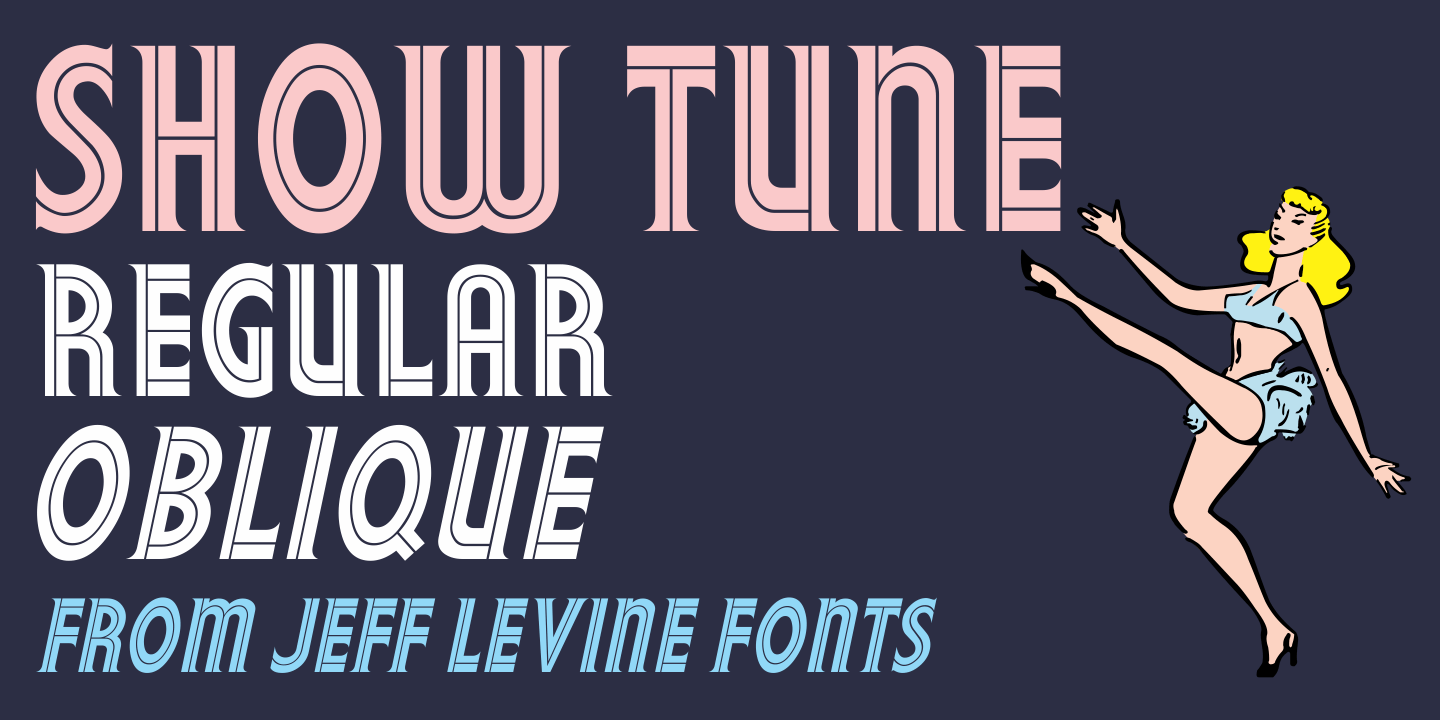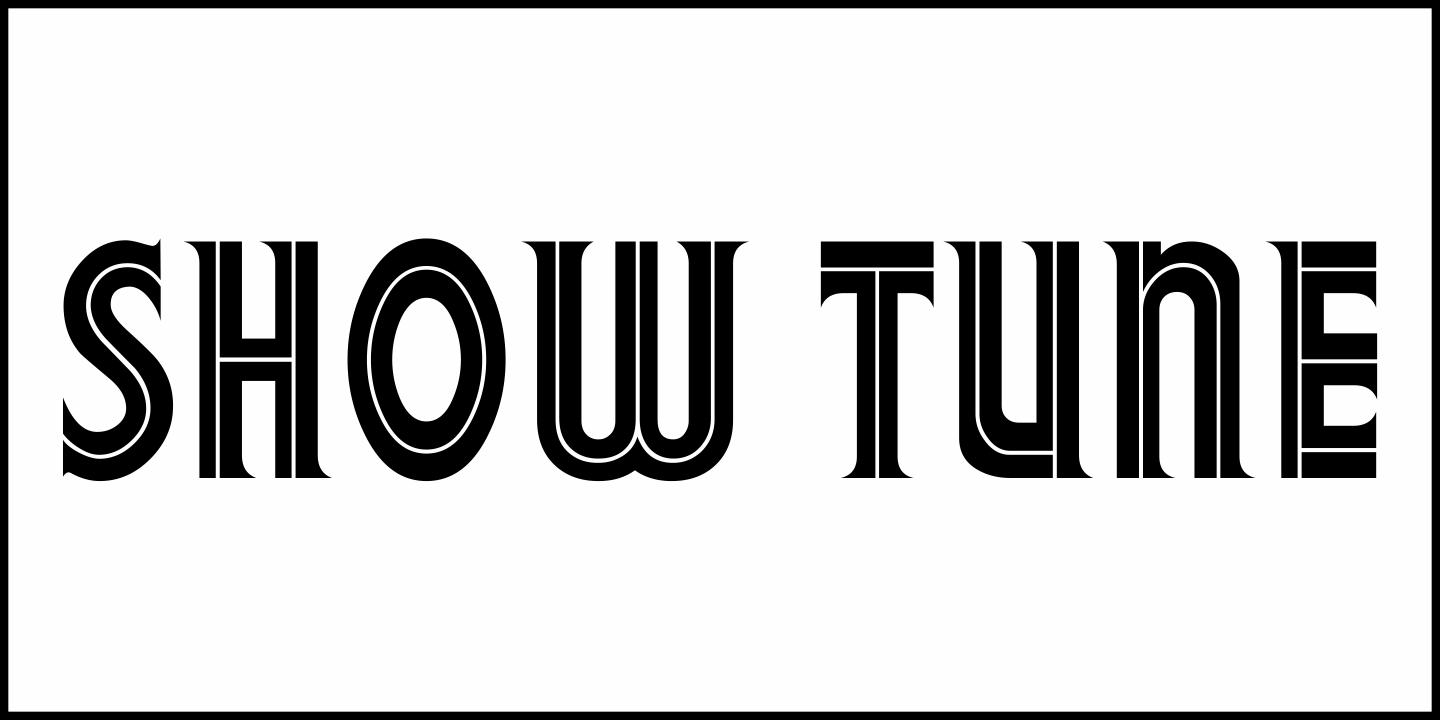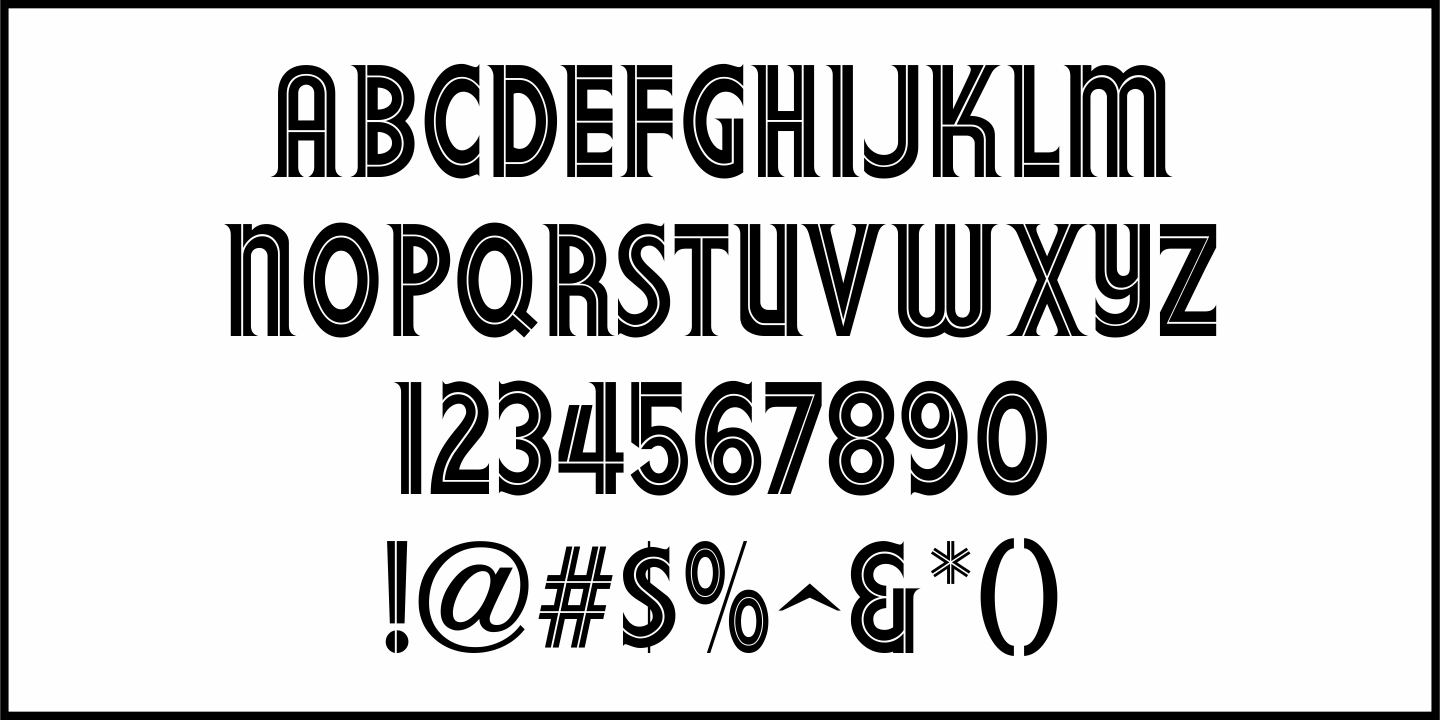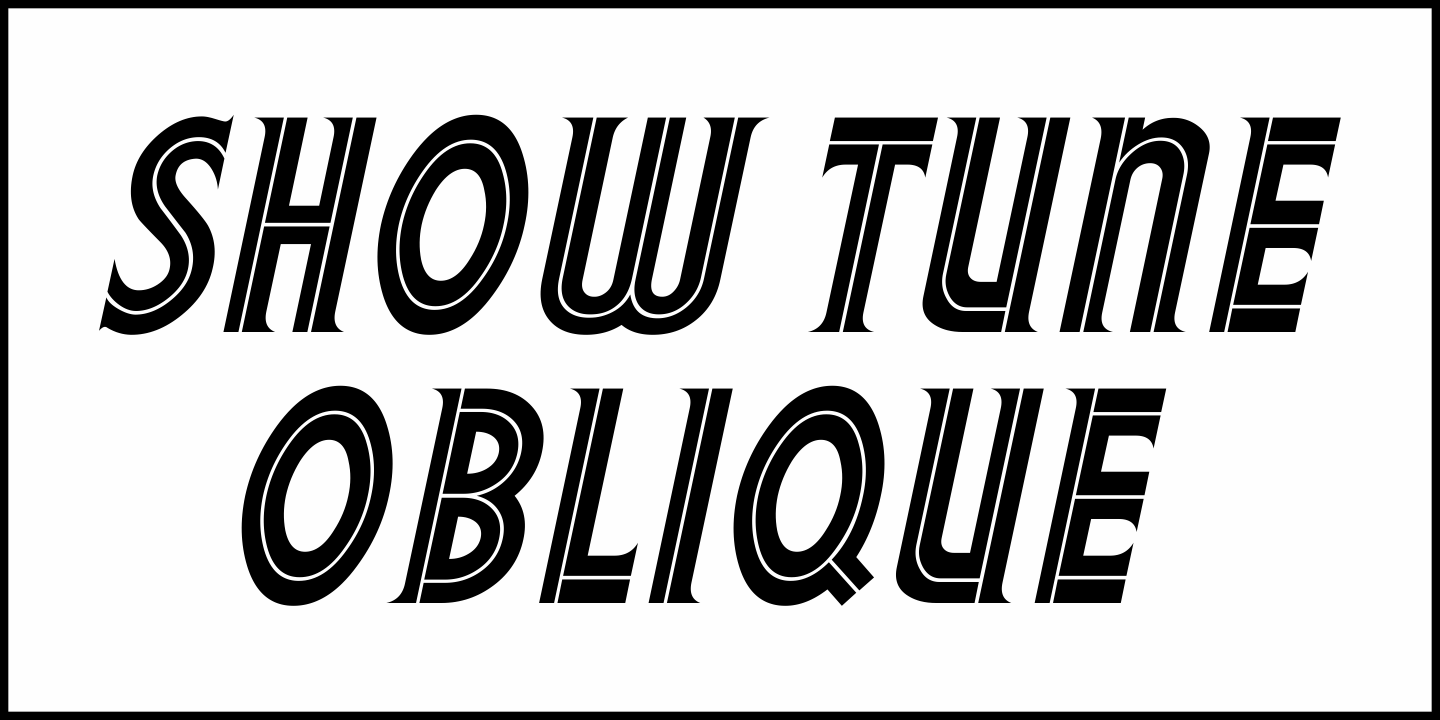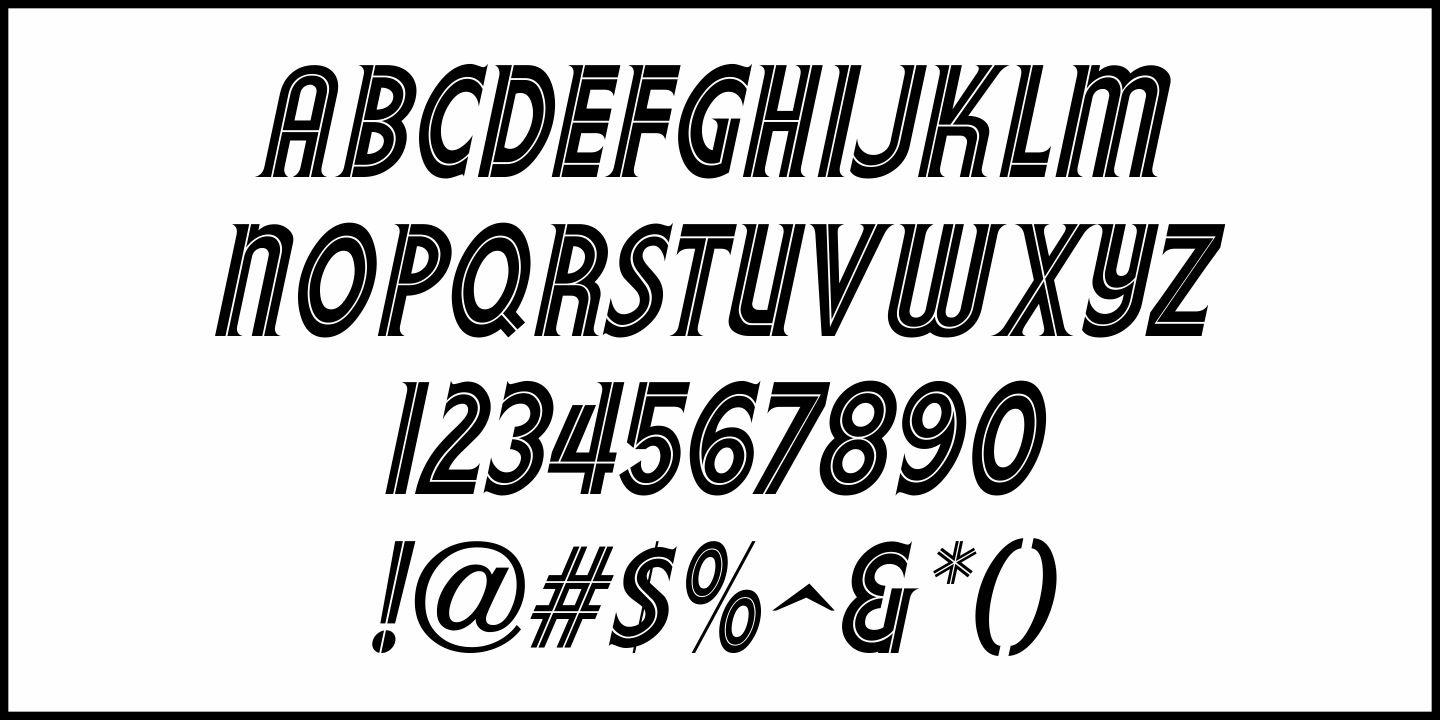
Show Tune
Hand lettering used in the trailer for the 1943 movie musical 'Broadway Rhythm' was the inspiration for Show Tune JNL, which is available in both regular and oblique versions.
Show Tune by Jeff Levine Fonts